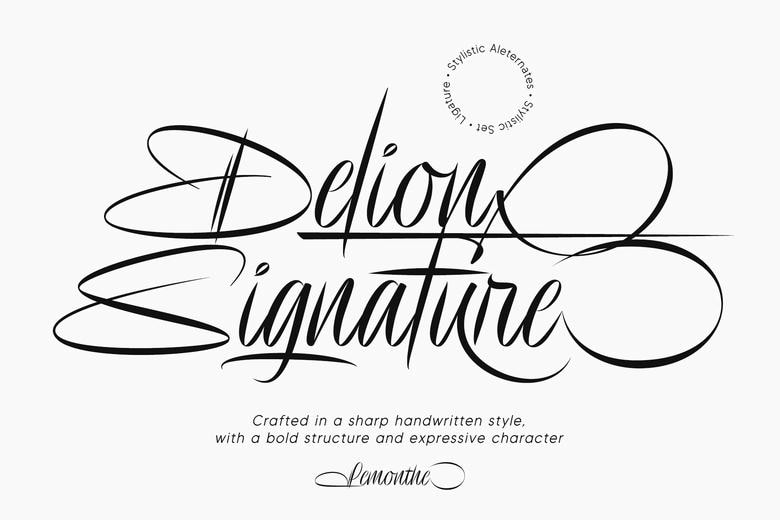
Delion Signature Font
Delion Signature is a beautiful and expressive signature font, with sharp lines and bold curves. Delion Signature is a perfect combination of a contemporary handwriting style with a professional artistic flair that is ideal for branding, personal logos, wedding invitations, product packaging and other creative projects that need to look distinctive and character-rich.
Delion Signature Script Font